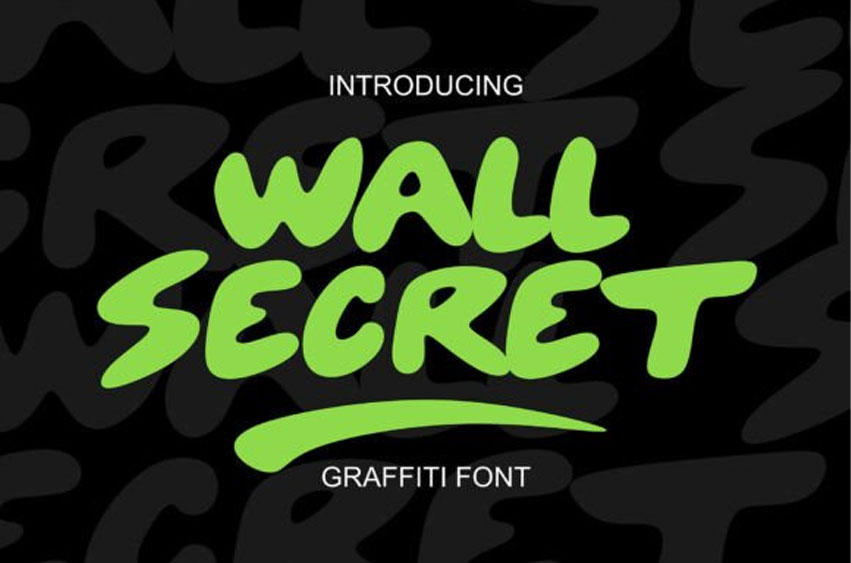
Wall Secret Font
Wall Secret Font typeface is an audacious graffiti font that flawlessly merges robustness with smoothness. The font enhances the appeal of your creations with letterforms that are strikingly bold yet surprisingly welcoming, creating an easily relatable urban impression.
This makes it the consummate choice for dazzling streetwear logos, vibrant music posters, enticing merchandise, and vivacious branding projects. Boasting clean curves and energetic forms, Wall Secret encapsulates the essence of contemporary graffiti while maintaining exceptional readability.
Be it rocking apparel graphics, innovative product packaging, or attention-grabbing social media visuals, the Wall Secret font provides a unique urban chic that truly distinguishes your design. Incorporate a taste of expressive street culture into your creative endeavors and watch every word pulsate with character. Files included are Wall Secret’s OTF and TTF.